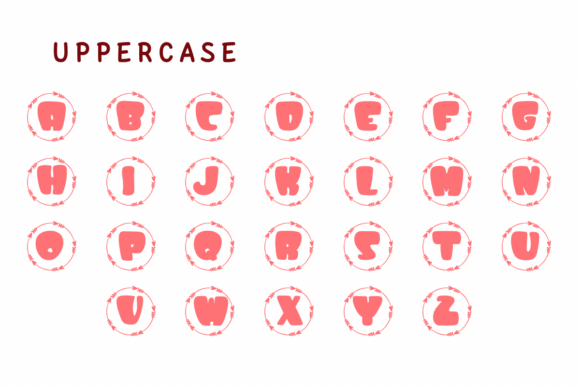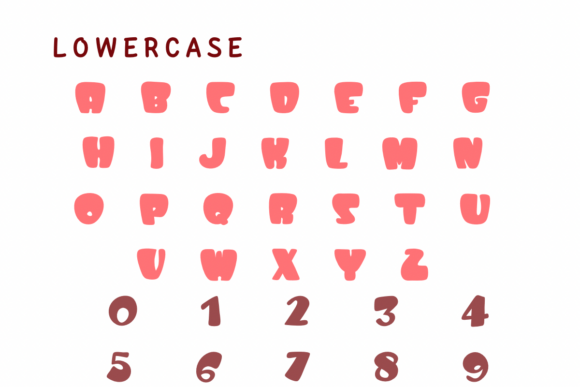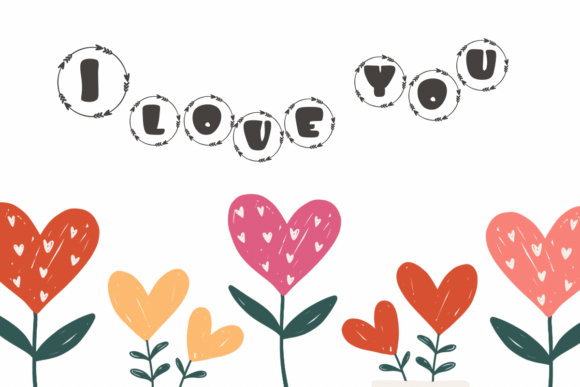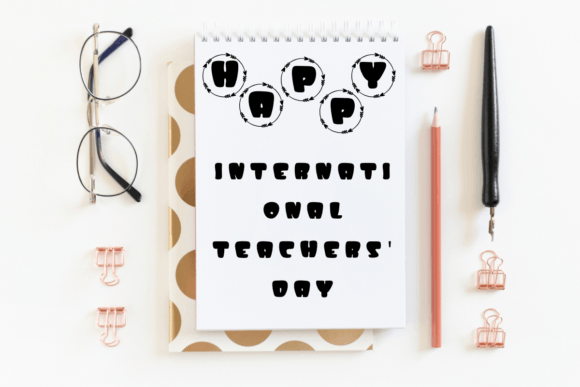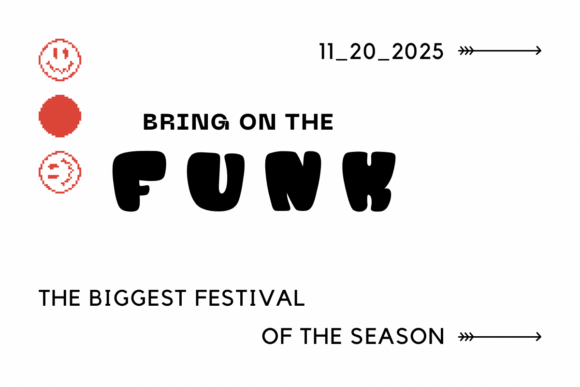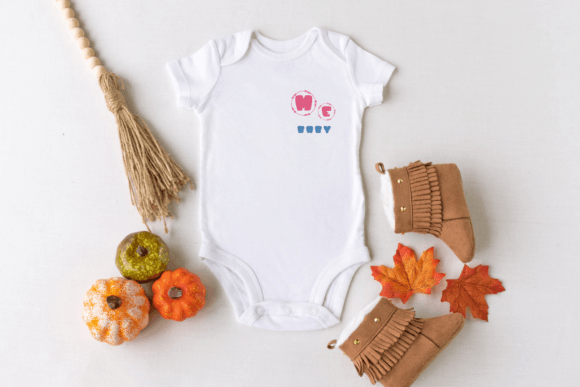
Introducing Heart Arrow Font: Add a Cheerful Touch to Your Designs
Are you looking for a font that can add a playful and fun vibe to your designs? Look no further than Heart Arrow Font! This delightful decorative font features bubbly letters surrounded by cute frames made of arrows, making it perfect for a variety of creative projects. In this article, we’ll explore the features and benefits of Heart Arrow Font, and how you can use it to take your designs to the next level.
What is Heart Arrow Font?
Heart Arrow Font is a unique and charming decorative font that is sure to capture the attention of your audience. The font features letters that are surrounded by frames made of arrows, giving it a fun and playful look. The arrows are arranged in a way that creates a sense of movement and energy, making this font perfect for designs that require a cheerful touch.
Key Features of Heart Arrow Font
- Playful and Fun Design: Heart Arrow Font features a playful and fun design that is sure to add a cheerful touch to your designs.
- Bubbly Letters: The font features bubbly letters that are surrounded by cute frames made of arrows.
- Cute Arrow Frames: The arrow frames are arranged in a way that creates a sense of movement and energy.
- Perfect for Creative Projects: Heart Arrow Font is perfect for a variety of creative projects, including invitations, greeting cards, and more.
Benefits of Using Heart Arrow Font
There are many benefits to using Heart Arrow Font in your designs. Here are a few:
- Adds a Cheerful Touch: Heart Arrow Font adds a cheerful touch to your designs, making them more engaging and attention-grabbing.
- Perfect for Kids and Adults Alike: The font is perfect for designs targeting kids and adults alike, as it appeals to a wide range of audiences.
- Increases Creativity: Heart Arrow Font can help increase creativity in your designs, making them more unique and interesting.
Ideas for Using Heart Arrow Font
Here are a few ideas for using Heart Arrow Font:
- Invitations: Use Heart Arrow Font to create fun and playful invitations for parties, birthdays, and more.
- Greeting Cards: Use the font to create cheerful greeting cards for special occasions.
- Social Media Graphics: Use Heart Arrow Font to create engaging social media graphics that grab attention.
- Crafting Projects: Use the font to add a personal touch to your crafting projects, such as scrapbooking and DIY signs.
Heart Arrow Font is a fun and playful decorative font that is perfect for adding a cheerful touch to your designs. With its bubbly letters and cute arrow frames, this font is sure to capture the attention of your audience. Whether you’re a designer or crafter, Heart Arrow Font is a great addition to your font collection. So why wait? Download Heart Arrow Font today and start creating fun and engaging designs!